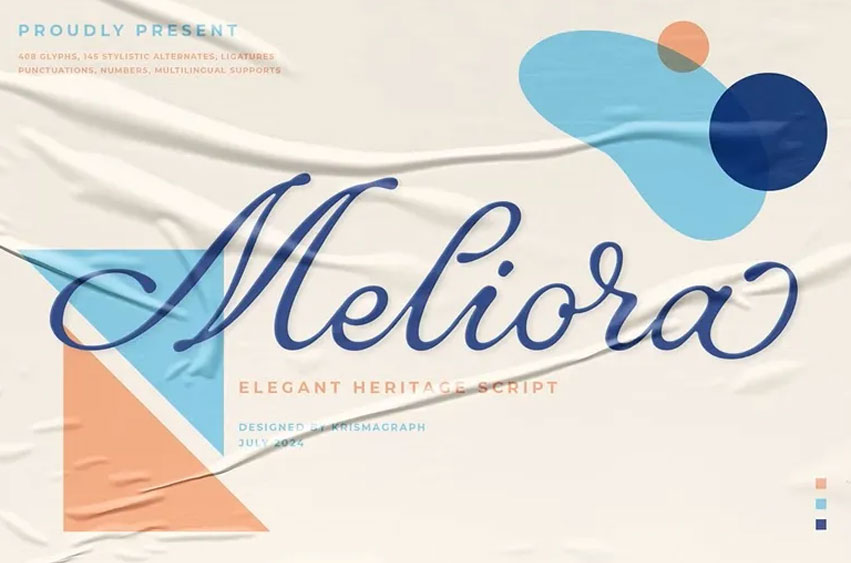
Meliora Font is a modern calligraphy script typeface inspired by the elegance of traditional handwriting. It reflects the beauty found in handwritten manuscripts and historical literature. This font features 145 alternates and polished ligatures. Its multilingual support gives it versatility and enhances its visibility.
It enhances various creative projects. Use it for printed quotes, logotypes, invitations and cards. It operates well on headers, product packaging, apparel, letterheads, and web layouts. You can also use it in magazines and books.